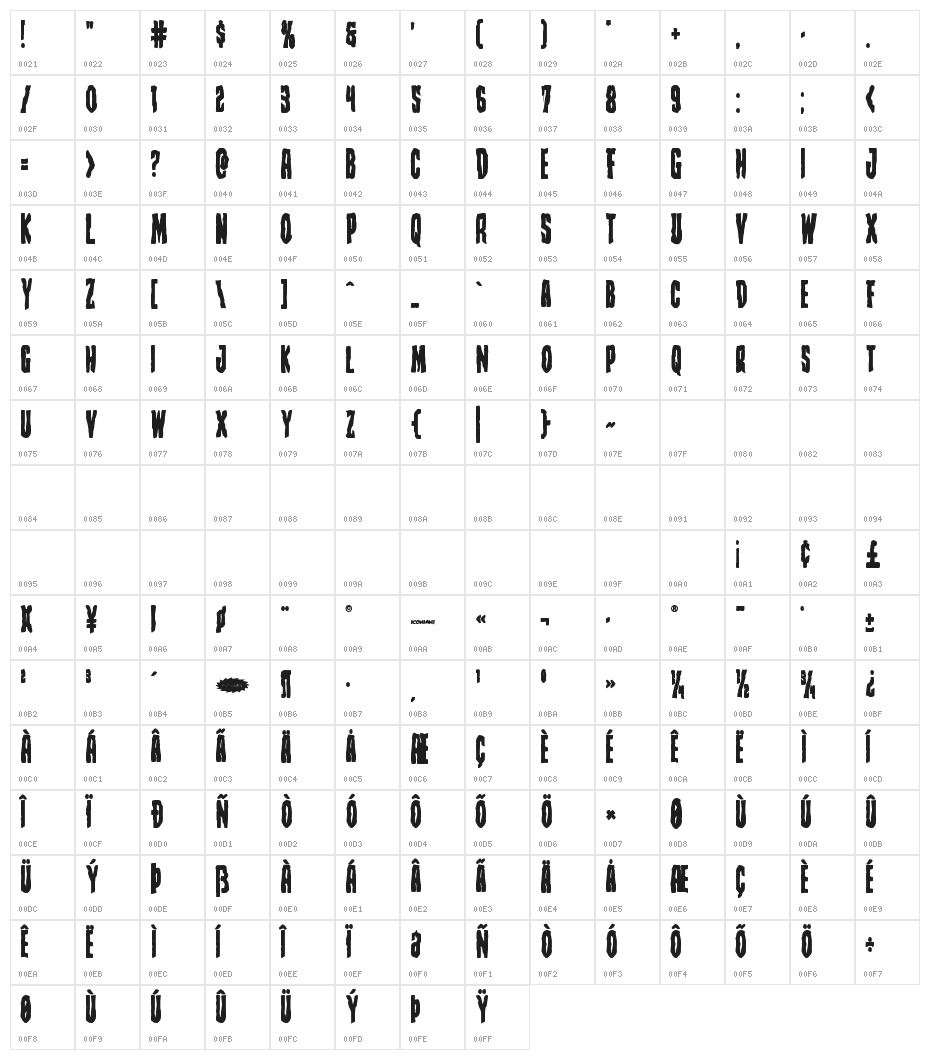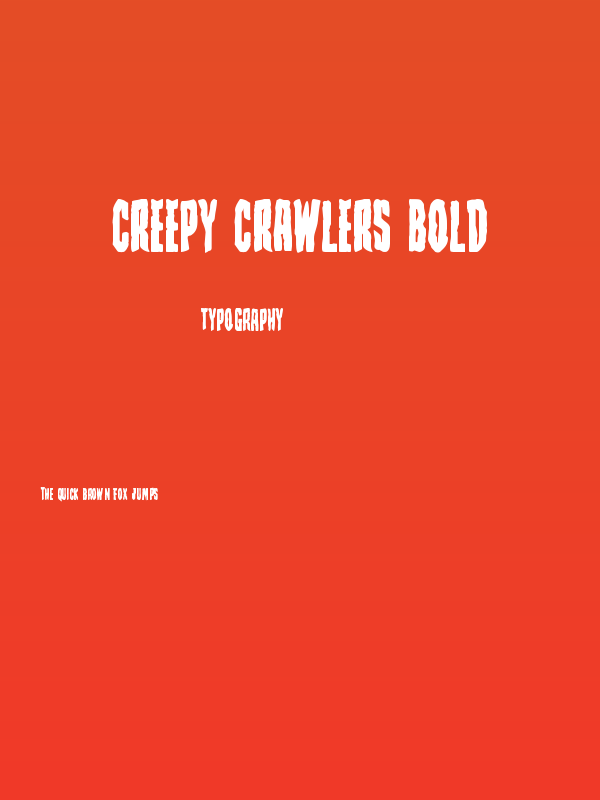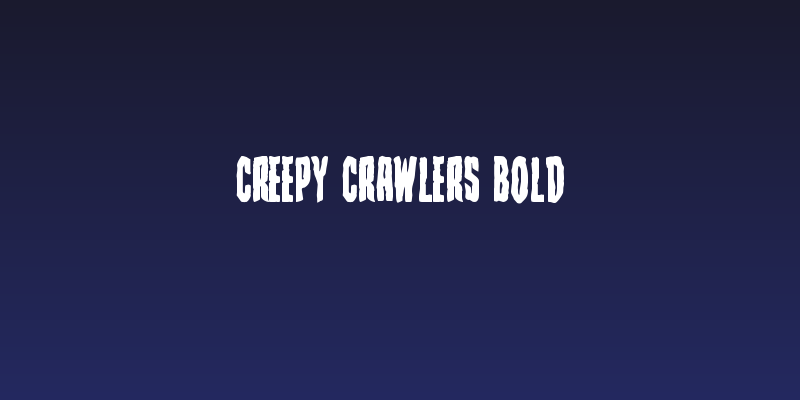
Creepy Crawlers Bold Font
Creepy Crawlers Bold Description
This font exhibits a bold and rugged appearance, with uneven edges that give it a distressed and eerie look. The characters are thick and substantial, creating a strong visual impact. The irregularities in the letterforms suggest a hand-drawn or organic quality, reminiscent of horror or Halloween-themed designs. The uppercase and lowercase letters maintain a consistent style, with the numbers and special characters following suit. This font's unique style makes it ideal for projects that require a spooky or unconventional aesthetic.
| Use Case | Headlines, Posters, Branding |
| Proposed Projects | Ideal for Halloween-themed posters, horror movie titles, escape room branding, or any project needing a spooky, bold aesthetic. |